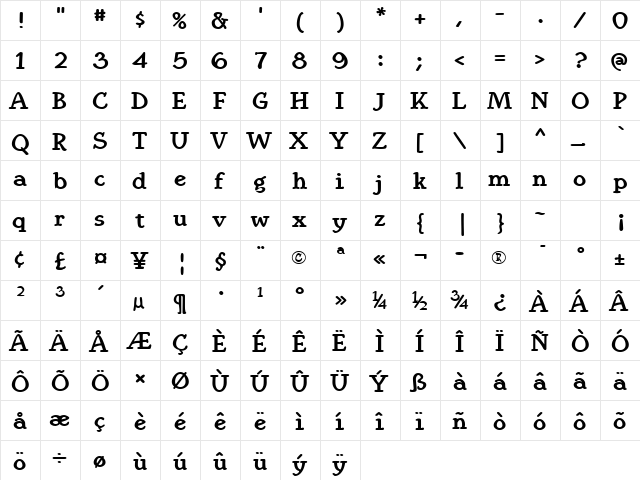
KampIngrianaH Bold Font Preview
KampIngrianaH Bold
Design Context for KampIngrianaH Typeface
KampIngrianaH offers clean, dependable letterforms without strong stylistic allegiance, making it a practical choice for designers who need flexibility. The heavy weight commands attention and anchors typographic hierarchies.